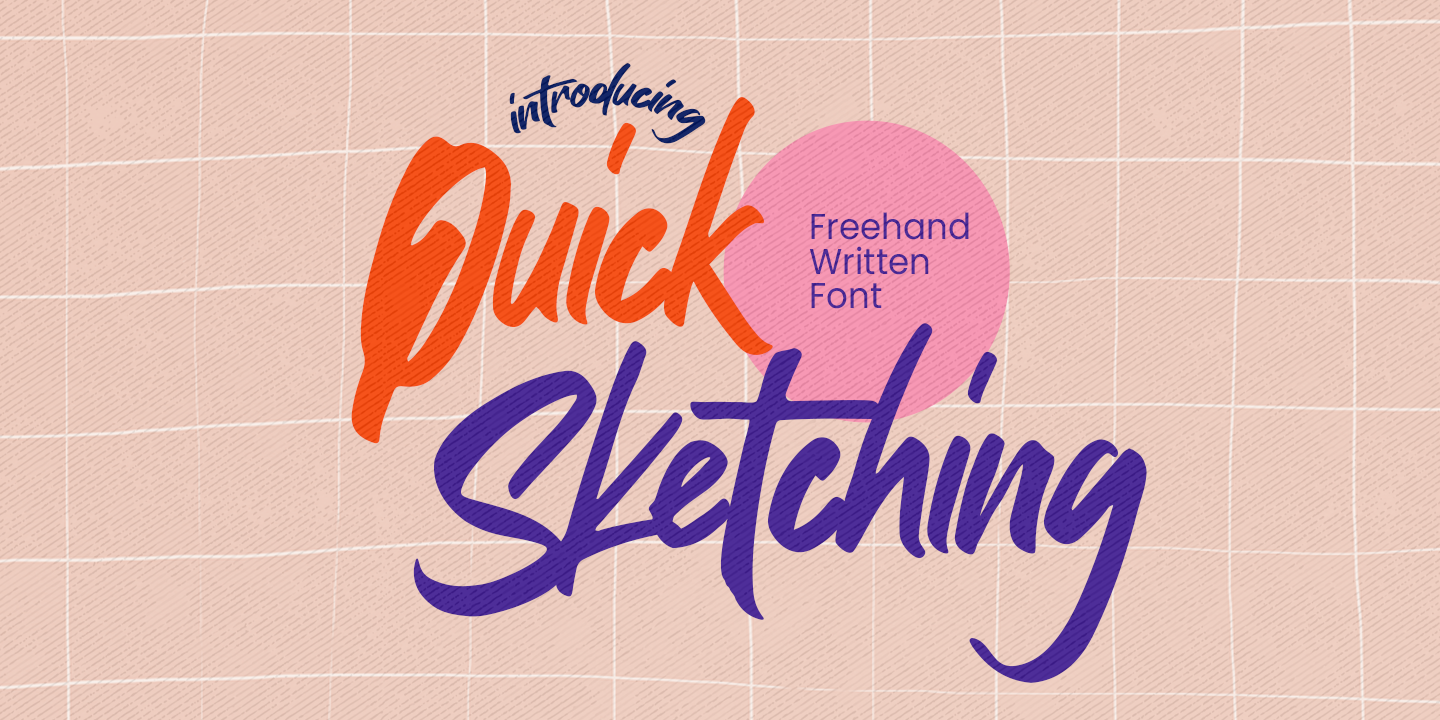
Quick Sketching Font is perfect for creative brainstorming sessions, design concept presentations, architectural rough drafts, artistic workshop materials, rapid prototyping documentation, idea development graphics, creative agency communications, design education resources, conceptual art projects, and spontaneous creative expression. This dynamic typeface excels in applications where creative spontaneity and rapid ideation need to be communicated with authentic sketch energy and impromptu charm that captures the essence of creative thinking in motion and the honest beauty of ideas taking shape in real-time.
What makes Quick Sketching Font exciting is its remarkable ability to embody the energetic spontaneity and creative urgency of rapid sketching through its dynamically drawn letterforms that seem to capture the quick, confident strokes of an artist's pencil racing to keep up with flowing ideas. The font captures the essence of creative momentum with its spontaneous construction and rapid-fire proportions that suggest the exciting rush of creative inspiration and the authentic imperfections that make hand-drawn sketches so compelling and alive. Its energetically crafted character details and impromptu personality create an atmosphere of creative authenticity that resonates with designers, artists, and creative professionals who understand the vital importance of capturing ideas quickly before they disappear.
The Quick Sketching Font family typically includes Regular and Bold weights, each maintaining the signature sketched characteristics and spontaneous energy. Some versions offer multiple sketch variations that simulate different drawing speeds, alternative character sets with enhanced hand-drawn elements, and specialized treatments that amplify the rapid sketching aesthetic. The family may also include lighter sketch weights for subtle conceptual work and heavier sketch treatments for maximum creative impact in brainstorming and ideation applications requiring authentic creative process representation.
Whether you're creating creative process documentation, design education materials, or rapid ideation communications, Quick Sketching Font Free Download delivers the perfect creative spontaneity your idea-focused projects deserve. Its sketched character and spontaneous styling make it an invaluable choice for design studios, art schools, and creative professionals working in conceptual design, creative education, and rapid prototyping sectors where authentic creative energy and spontaneous artistic expression are essential for communicating the dynamic nature of creative thinking and the exciting process of transforming ideas into reality.